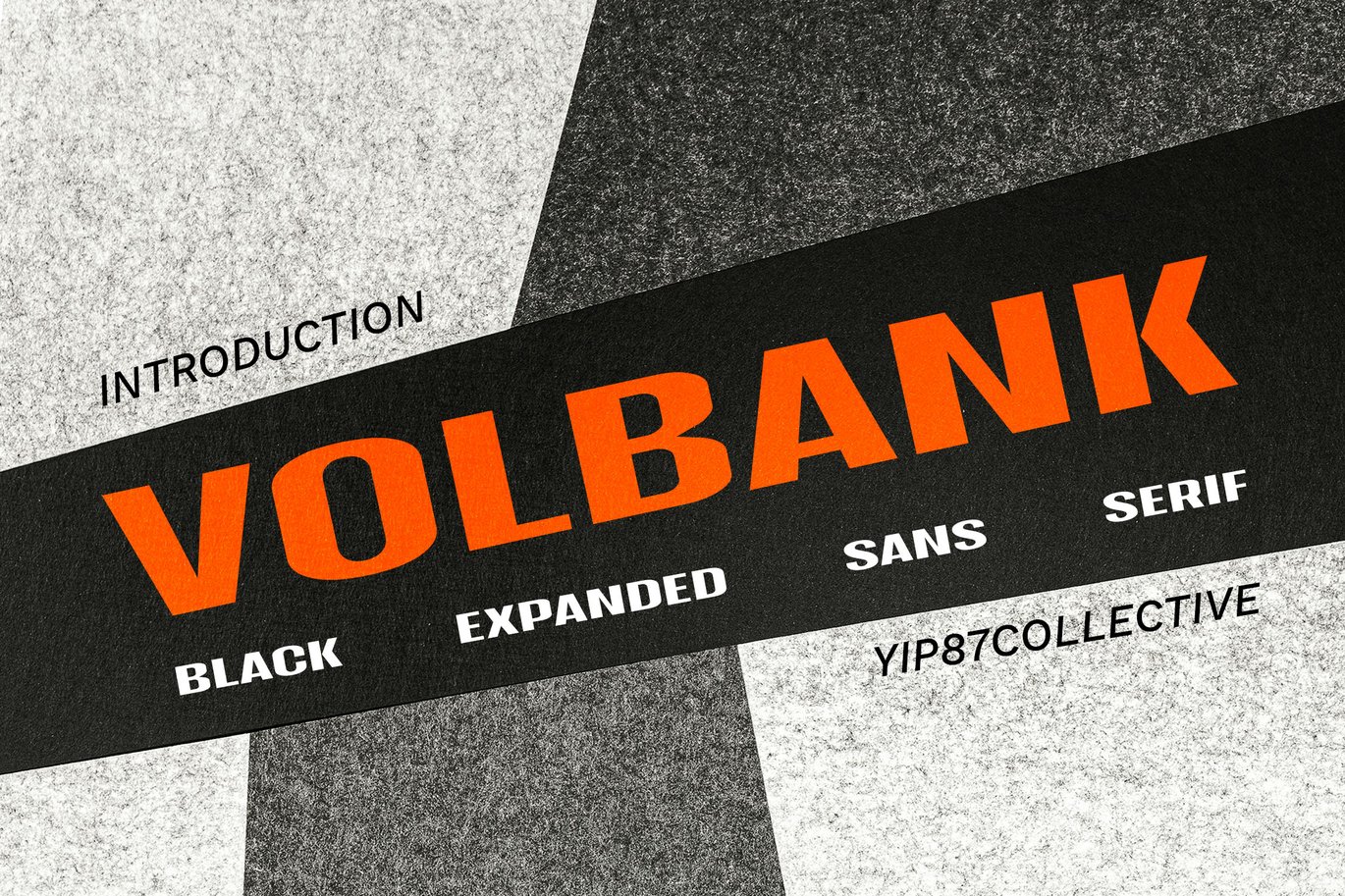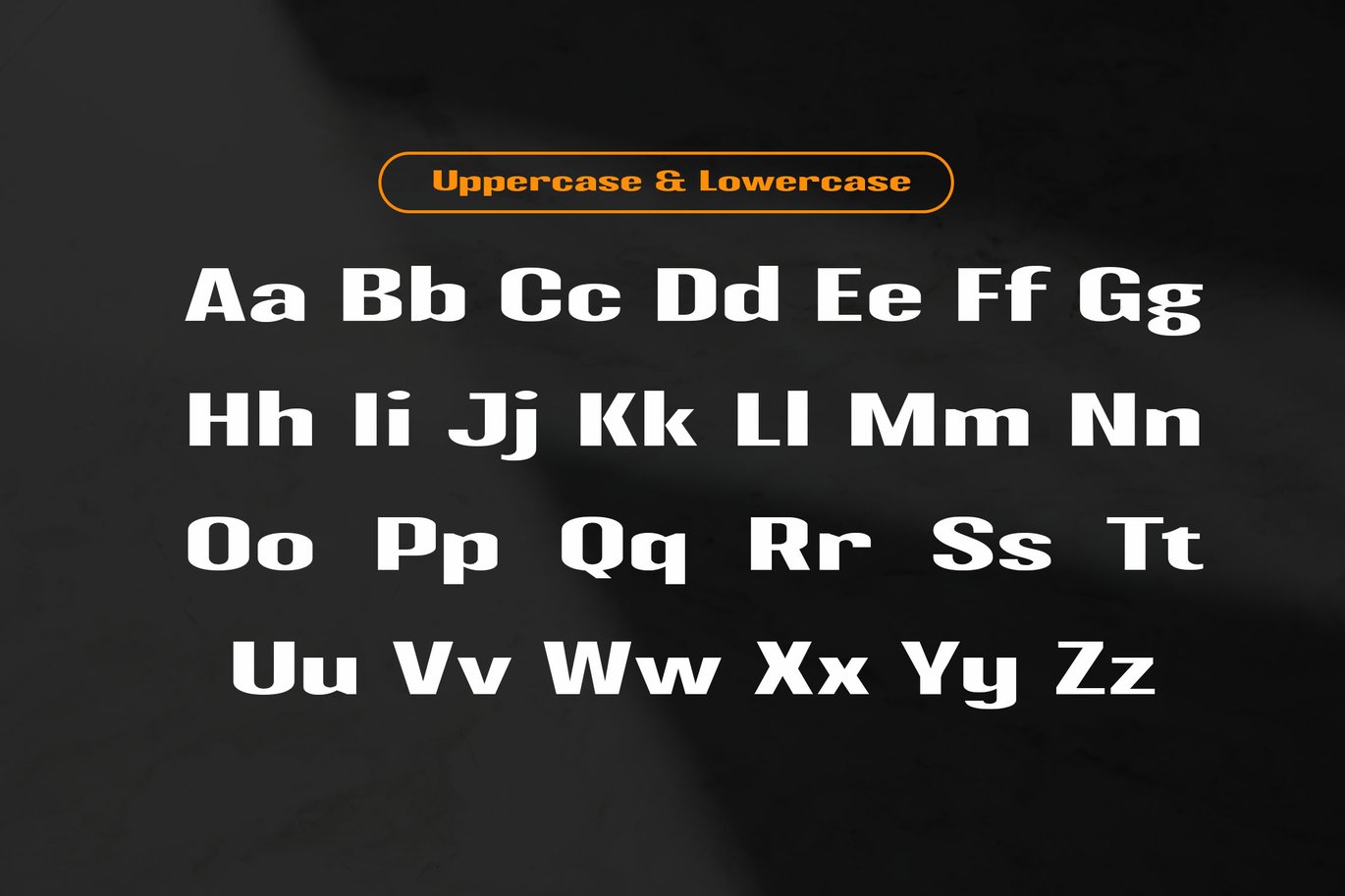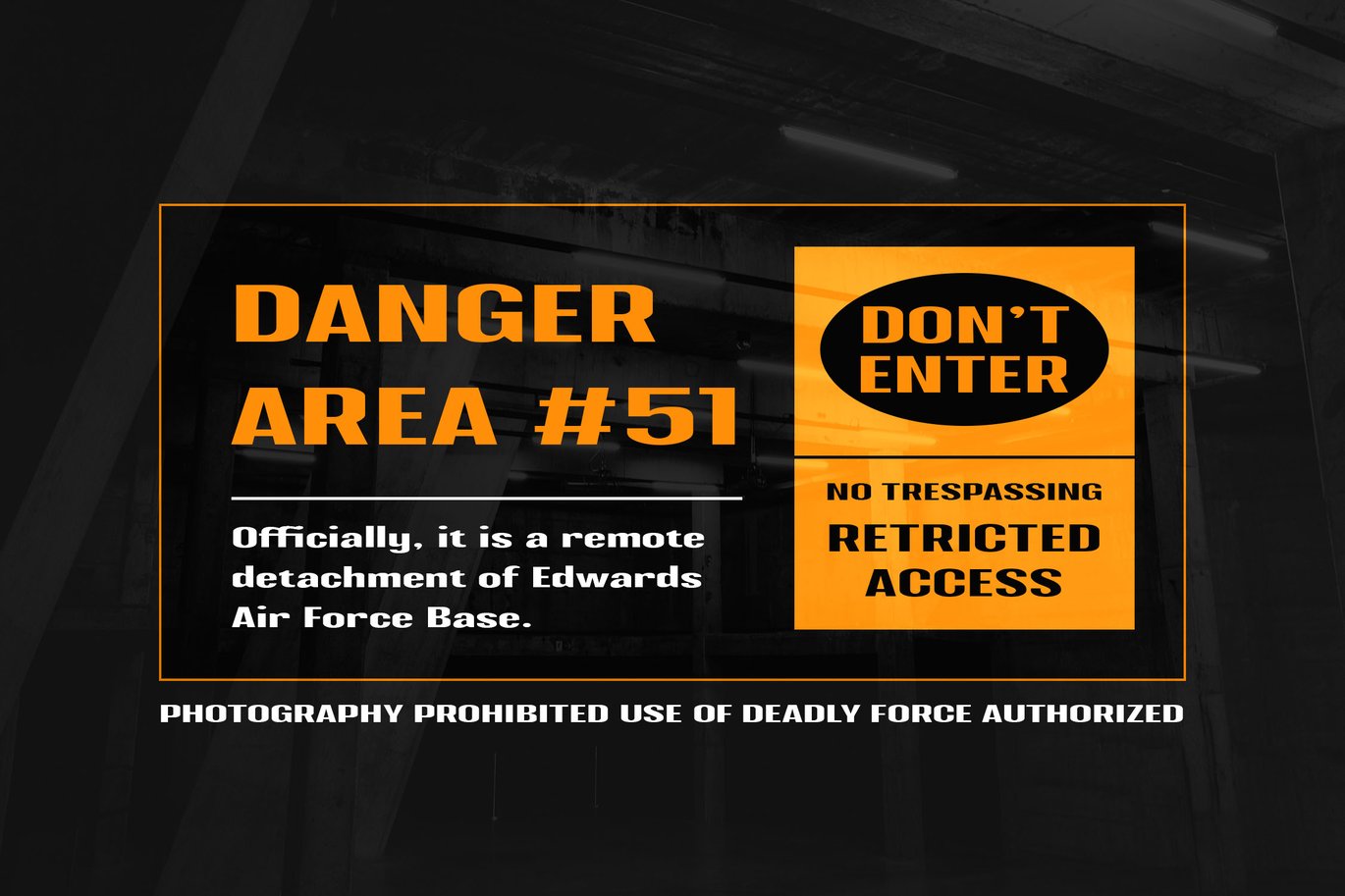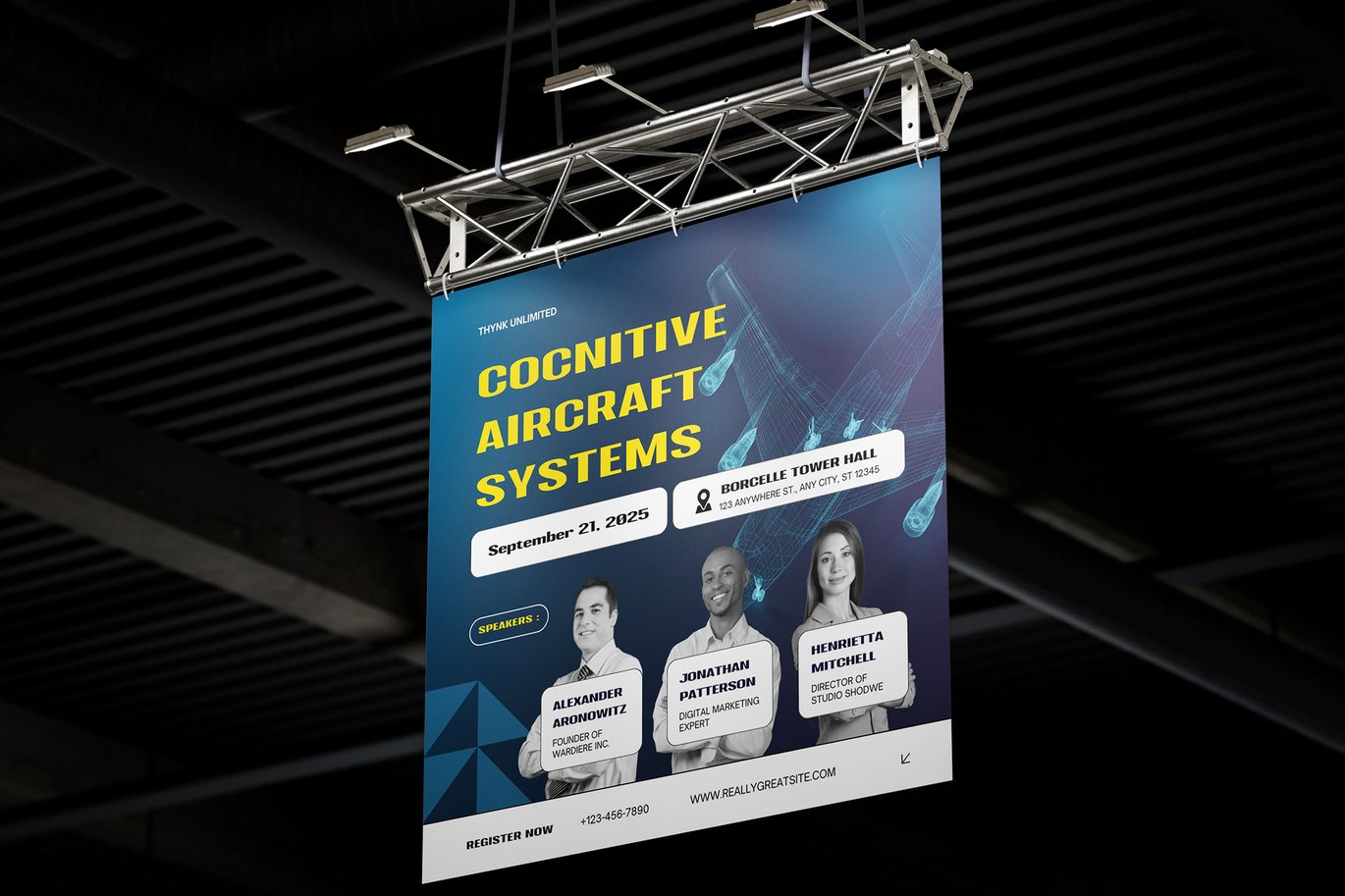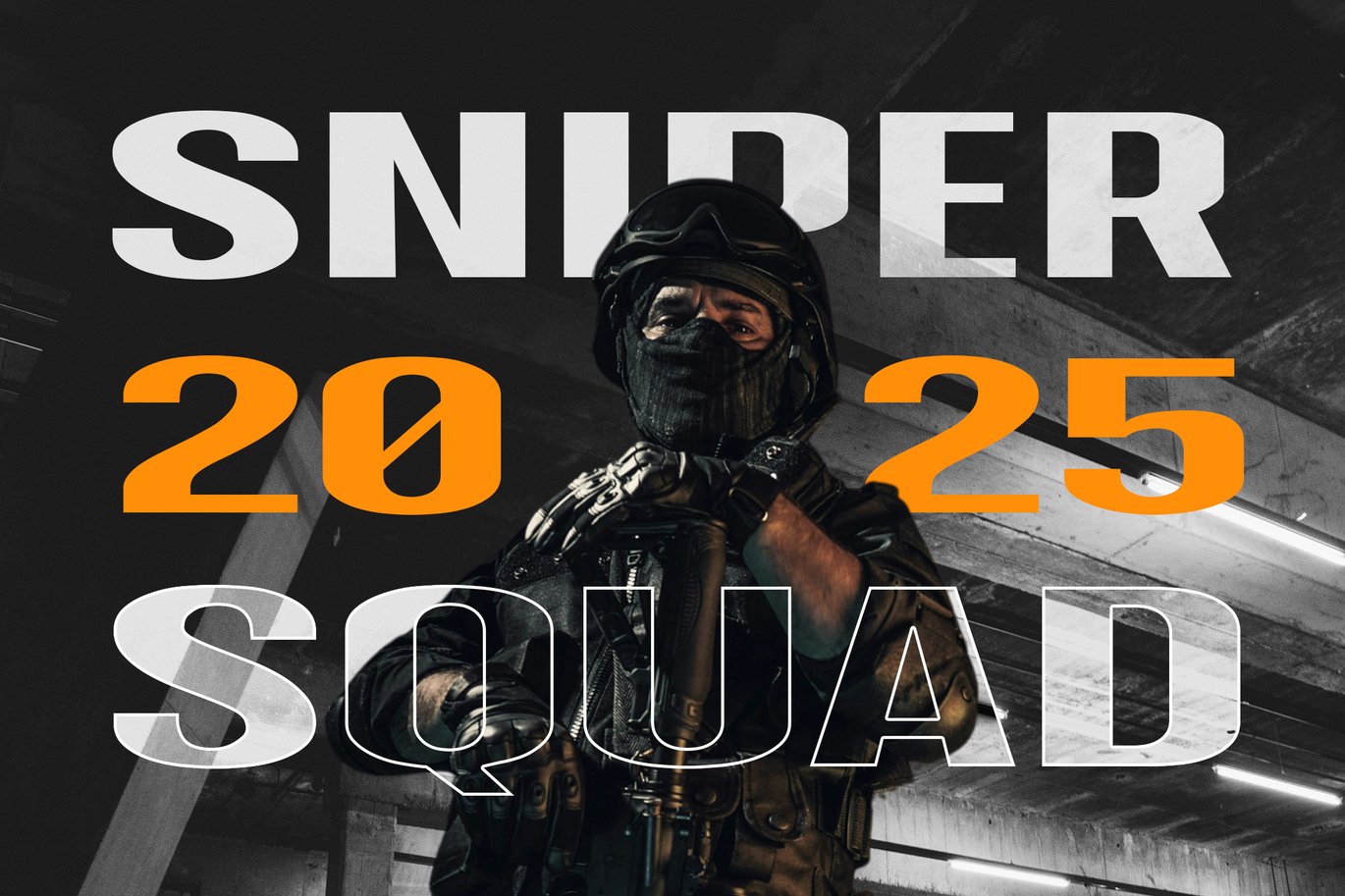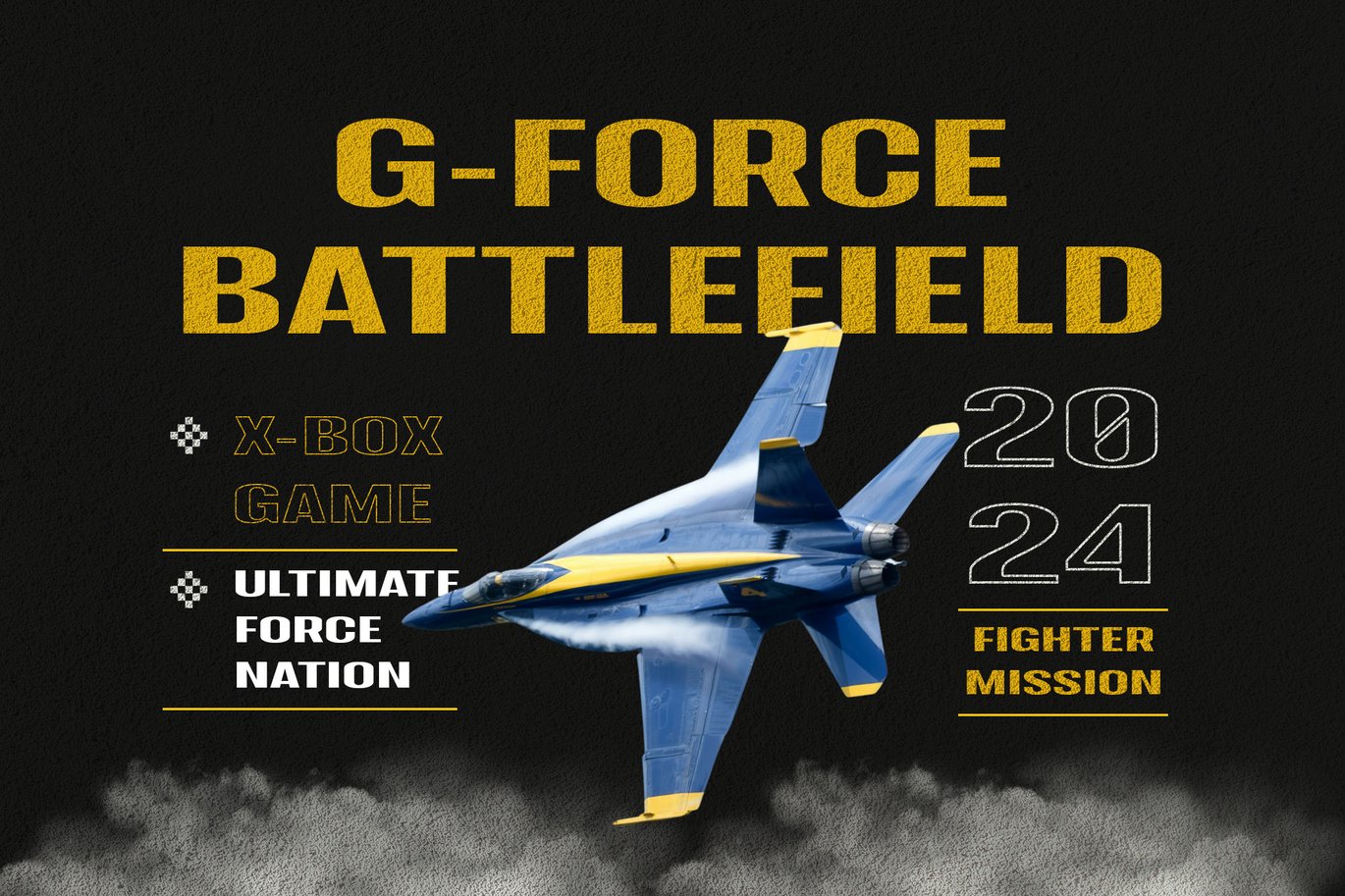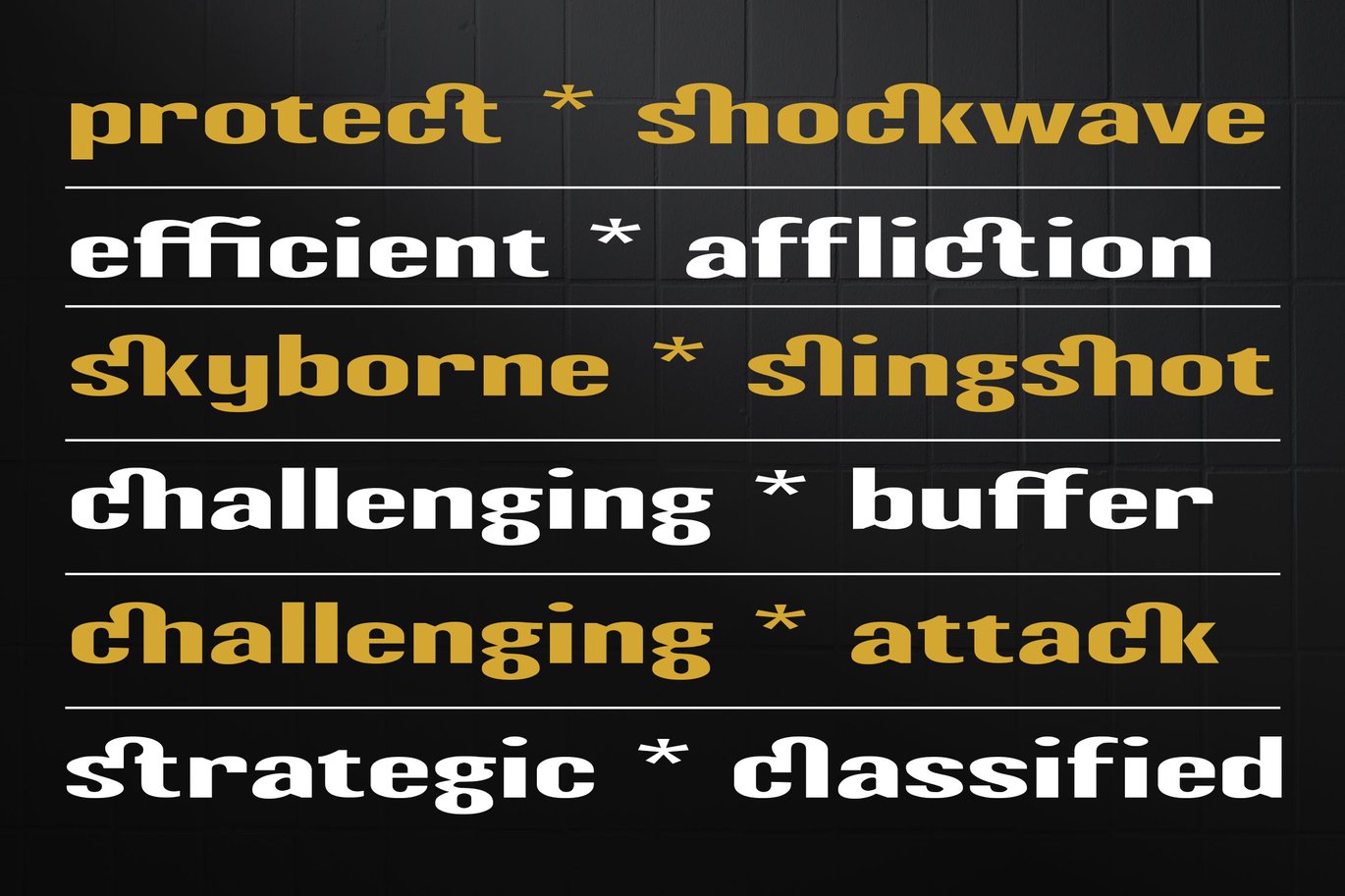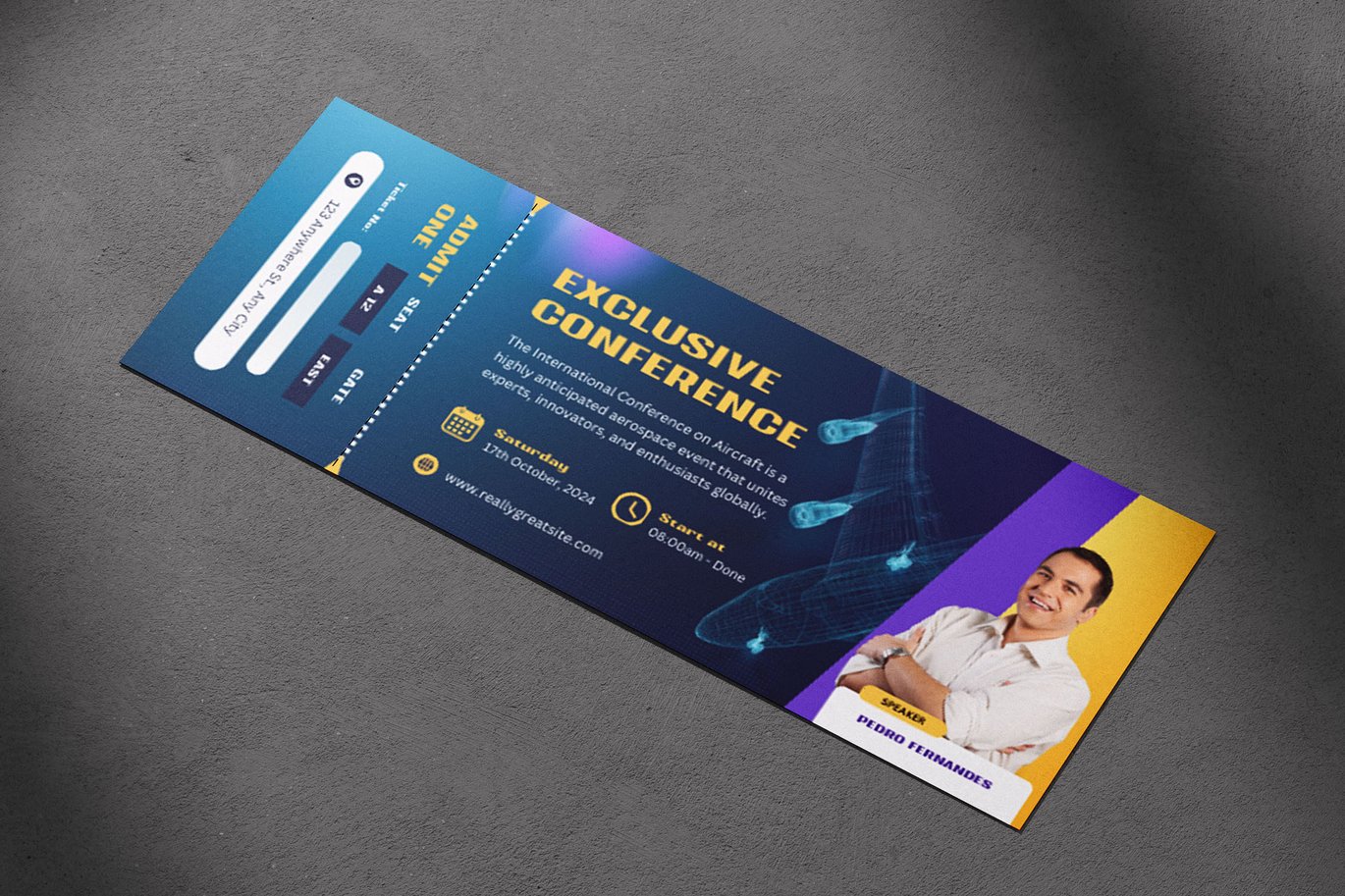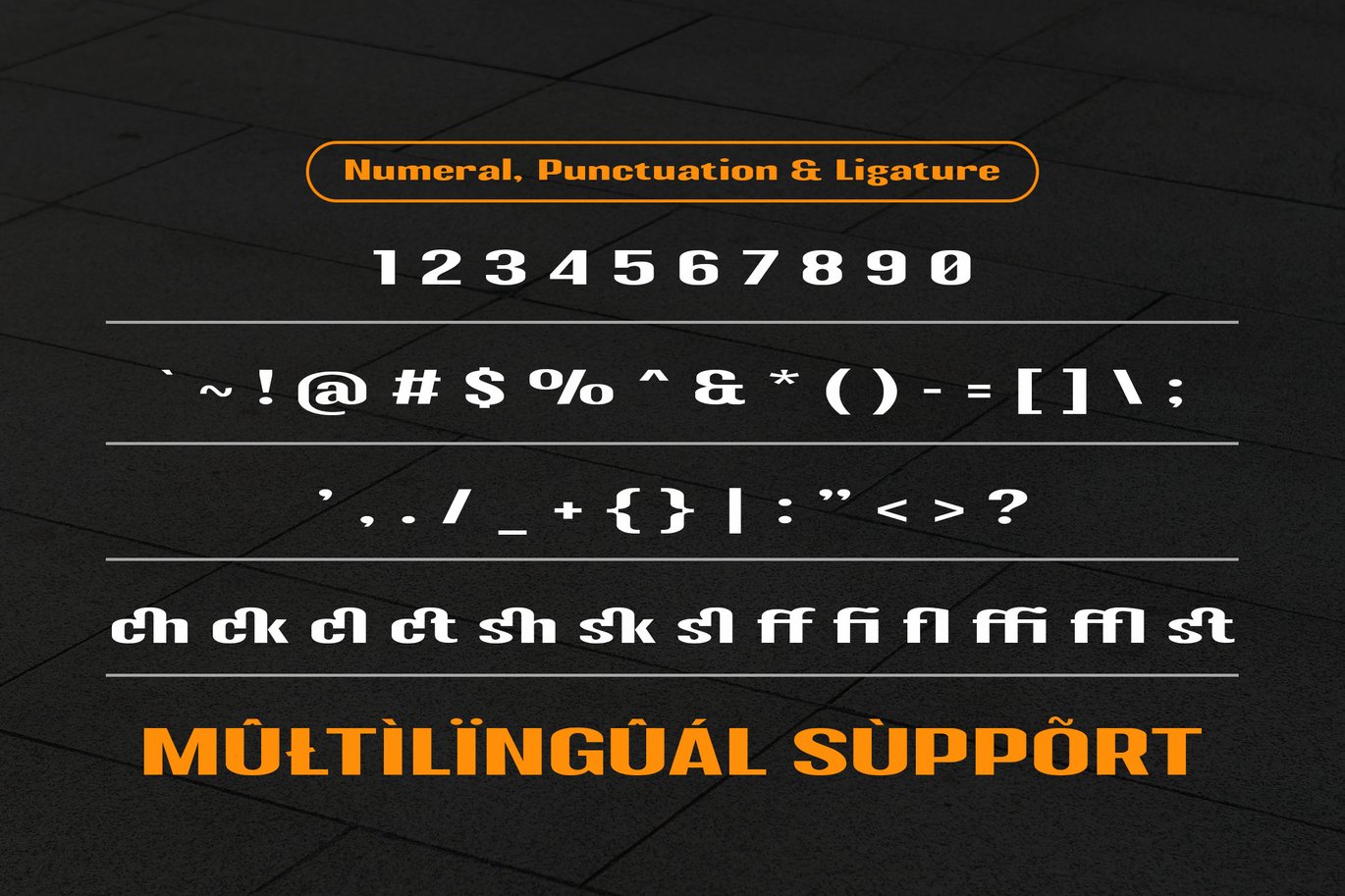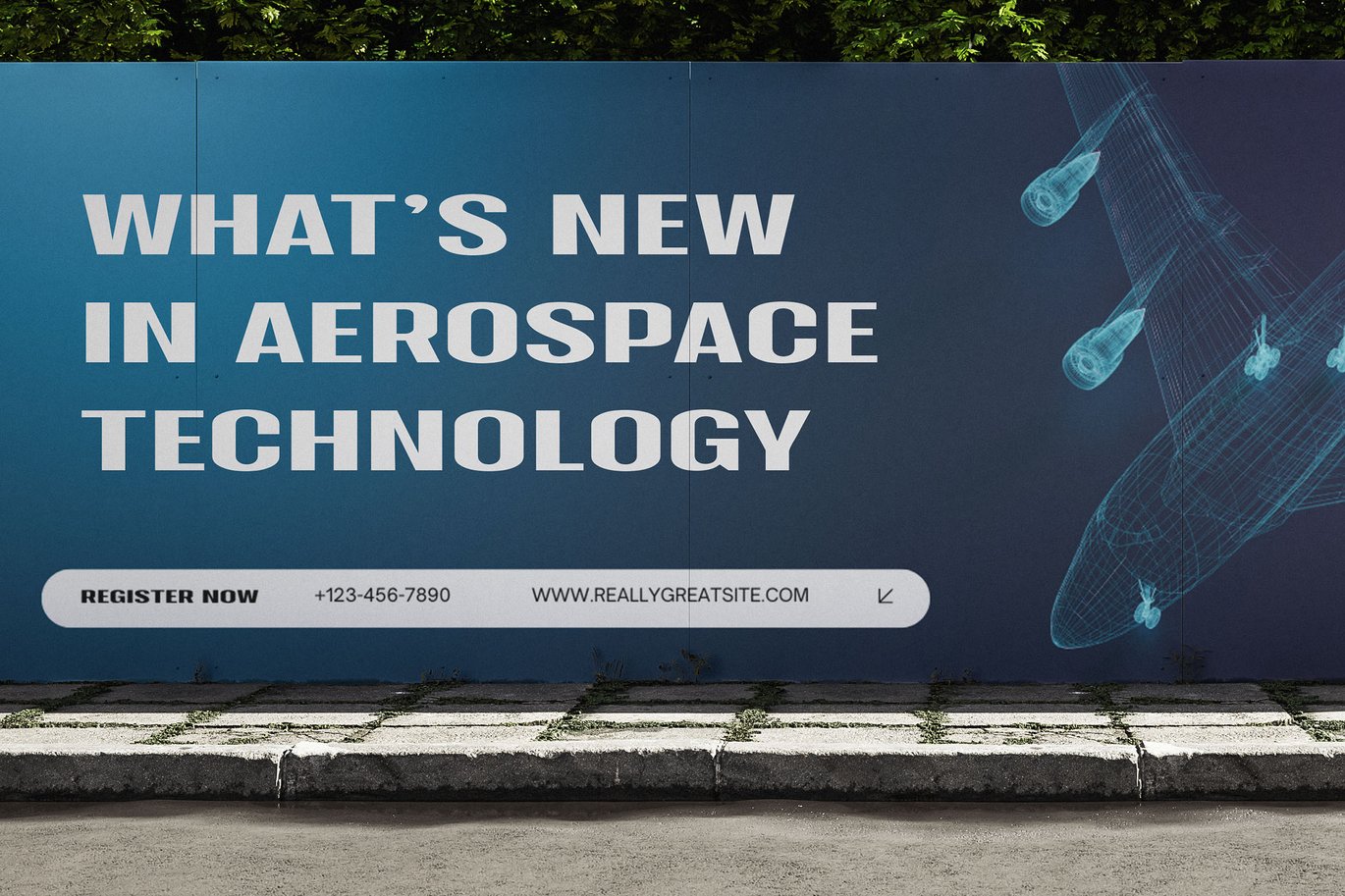
Volbank – Futuristic Military War Game Sans Font
Volbank – Sport Race Font – Scifi Futuristic Military Army War Game Sans Font.
Volbank Game Sans Serif Display Font is perfect for your up coming projects. Such as logo branding, editorial design, esport design, 80s retro design, war and scifi game / gaming industry, sport racing, super car brand, esport branding, music poster, website design, modern advertising design, poster quote, book/cover title, special events and any more. Elevate your branding design projects with Volbank Font today.